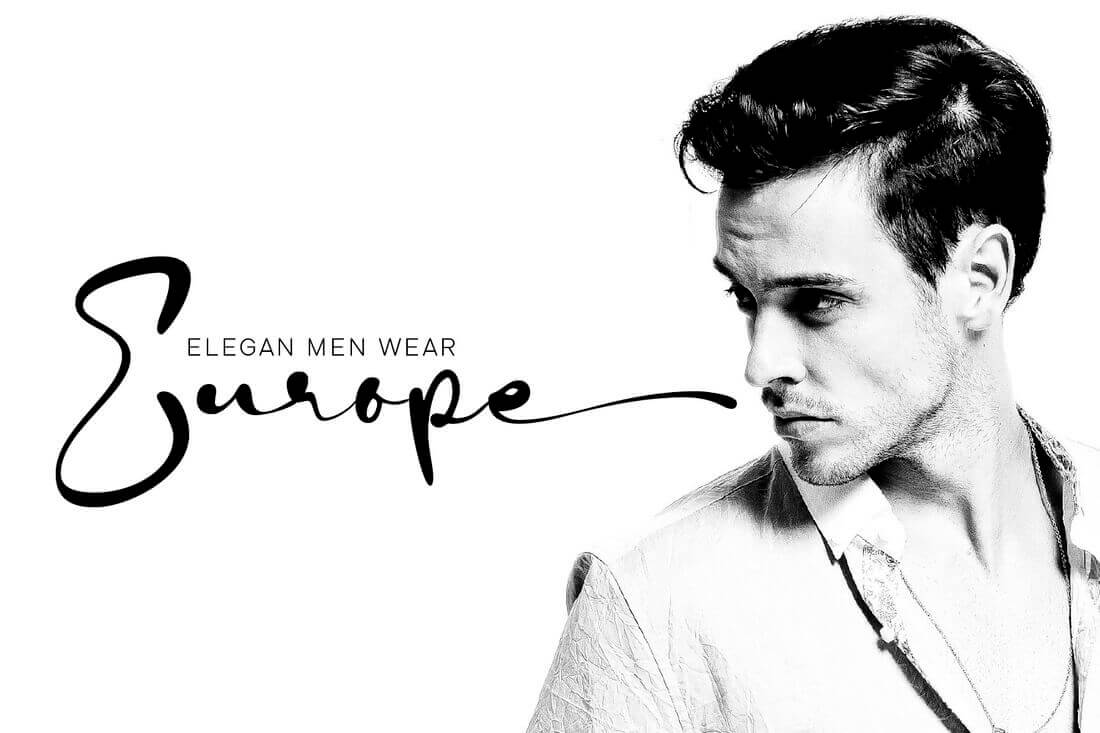
Jakarta, Natural Script Font
Jakarta is a chic script font that owes its inspiration to urban style. Fun and flowing, it’s a great choice for all sorts of printed projects from branding to wedding invitations to greeting cards. Take advantage of the OpenType features to create your masterpiece and the extended license offers you unlimited capabilities.
Highlights:
- Casual script font inspired by today’s urban style;
- Great choice for a variety of projects including logos, printed quotes, cards, invitations, cards, product packaging, headers, apparel, labels, and more;
- OpenType Features – swash alternate, titling alternates, stylistic alternates;
- All lowercase letters include beginning and ending swashes, giving a realistic hand-lettered style;